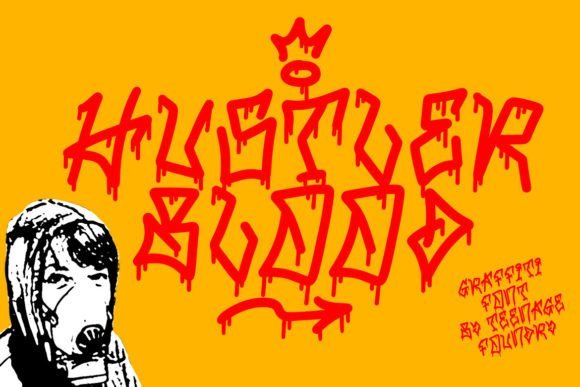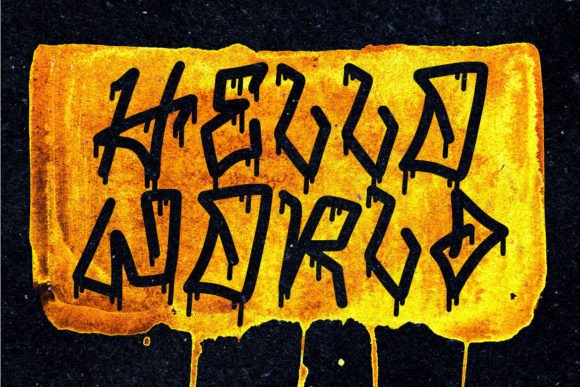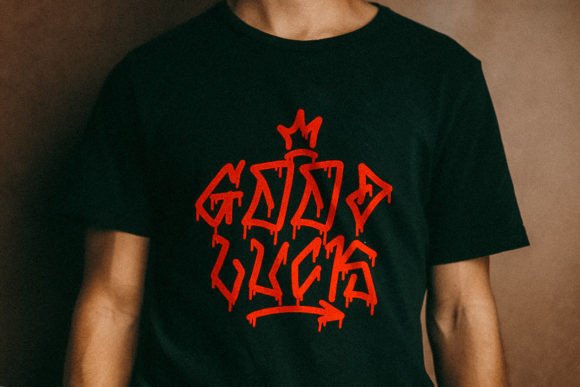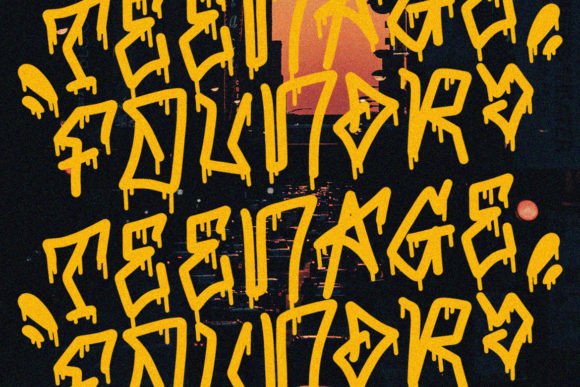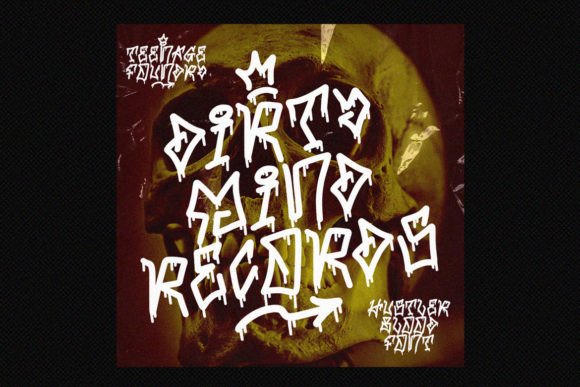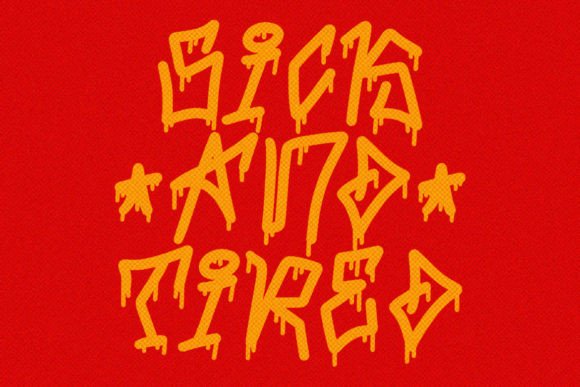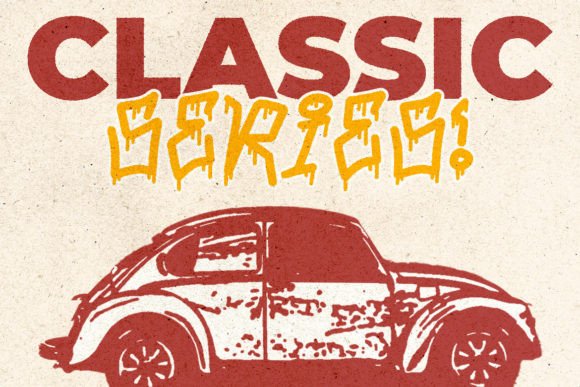
For those moments when you need a little extra oomph, enter the Hustler Blood Font – a game-changing design that’s sure to add a splash of creativity to your projects. This vibrant, monoline font features a bold splash of paint that gives your designs a one-of-a-kind look, setting you apart from the crowd and leaving a lasting impression.
Whether you’re a seasoned pro or just starting out, the Hustler Blood Font is an invaluable addition to any designer’s toolkit. Its unique style and versatility make it the perfect solution for anything from branding and marketing materials to digital art and more.
Hustler Blood Font Key Features
- Font Family: A bold and edgy sans-serif font designed for headlines and titles.
- Unique Characteristics: Distinctive letterforms, bold strokes, and a gritty texture give the font a raw, urban feel.
- Font Style: Available in regular and bold weights, offering options for varying levels of emphasis and expression.
Hustler Blood Font Review
At first glance, the Hustler Blood Font has a certain allure to it. Its bold and edgy design ✨ is reminiscent of a bygone era, and it’s clear that the creator aimed to evoke a sense of rebellion and attitude. When used correctly, the font can add a touch of grit and sophistication to a design.
However, there are some limitations to consider ⚠️. For one, the font’s boldness can sometimes feel overwhelming, making it difficult to read in certain contexts. Additionally, the font’s edgy aesthetic may not be suitable for all audiences, particularly those who prefer more conservative designs.
Pros:
- ✨ Bold and edgy design that’s perfect for making a statement
- ✨ Can add a touch of sophistication and grit to a design
- ✨ Wide range of customization options available
Cons:
- ⚠️ Can be overwhelming in certain contexts
- ⚠️ May not be suitable for all audiences
- ⚠️ Limited support for non-Latin characters
Overall, the Hustler Blood Font is a bold and eye-catching choice that’s perfect for designers who want to make a statement. However, it’s essential to consider the limitations and potential pitfalls before using it in a design project.
The Hustler Blood Font is ideal for creating bold and eye-catching headings and titles. It’s commonly used in:
- Graphic design projects
- Marketing materials
- Social media graphics
Remember to adjust the font size and style to ensure readability and visibility.